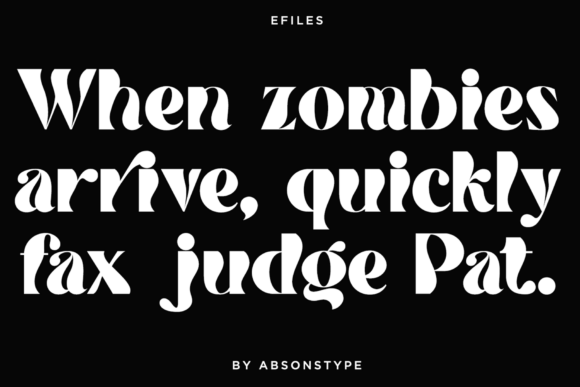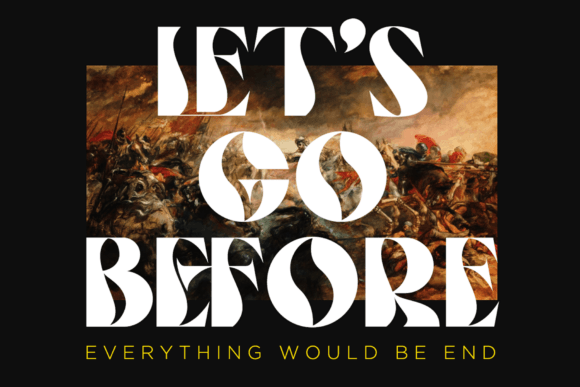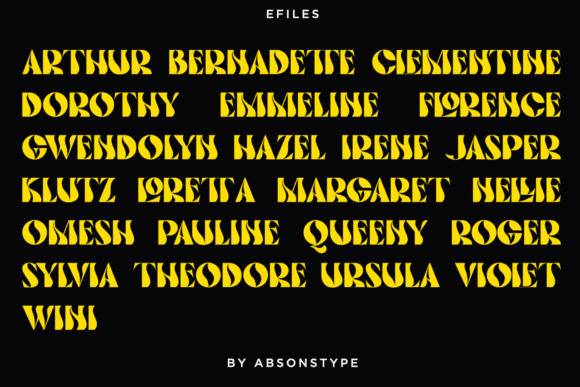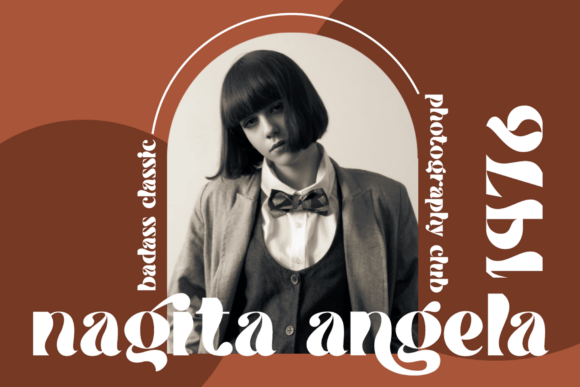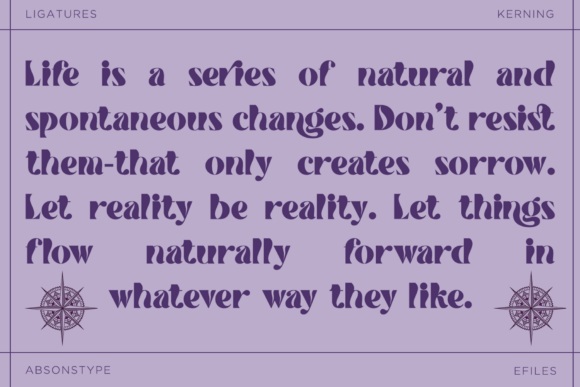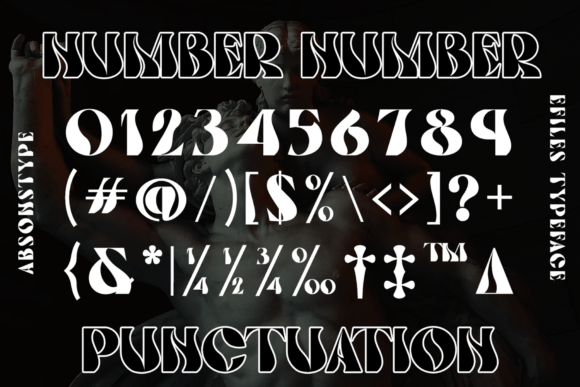
Introducing Efiles Font: Elevate Your Designs with a Bold and Creative Typeface
In the world of typography, a font can make all the difference in bringing your designs to life. If you’re a designer or crafter looking for a unique and versatile typeface to add a bold jolt of creativity to your work, look no further than Efiles Font. This stunning display font boasts high contrast, an upbeat disposition, and a harmonious balance of uppercase and lowercase characters, making it the perfect choice for a wide range of design projects.
A Unique Display Typeface
Efiles Font is a one-of-a-kind display typeface that is sure to turn heads. Its high contrast design gives it a distinctive look that is both modern and eye-catching. The font’s upbeat disposition makes it perfect for designs that require a playful and energetic feel. Whether you’re creating a striking headline, logo, or poster, Efiles Font is sure to make a lasting impression.
One of the standout features of Efiles Font is its versatility. This font is not just limited to a specific design project or medium. It can be used for a wide range of applications, including:
- Striking headlines and logos
- Eye-catching posters and flyers
- T-shirt designs and other apparel
- Packaging typography
Wherever you need to make a bold statement, Efiles Font is the perfect choice.
Ligatures and Alternate Characters
Efiles Font takes versatility to the next level with its bouquet of ligatures in variant styles. This means that each word you create is not just legible but also aesthetically pleasing. The font’s ligatures option is set as the default in Adobe Illustrator or Adobe Photoshop for uppercase characters, allowing you to easily access a range of stylized character combinations.
But that’s not all. Efiles Font also comes with alternate characters that can be easily accessed via the glyphs panel in Adobe Illustrator or Adobe Photoshop. This feature allows you to unlock a world of creative possibilities and experiment with different character styles to find the perfect look for your design.
Why Choose Efiles Font?
So why choose Efiles Font over other typefaces? Here are just a few compelling reasons:
- Unique and eye-catching design: Efiles Font boasts a distinctive high contrast design that is sure to turn heads.
- Versatility: This font can be used for a wide range of design projects, from striking headlines and logos to eye-catching posters and packaging typography.
- Ligatures and alternate characters: Efiles Font comes with a range of ligatures and alternate characters that allow you to add an extra level of creativity to your designs.
- Easy to use: The font’s in-built opentype feature and intuitive glyphs panel make it easy to access its advanced typographic capabilities.